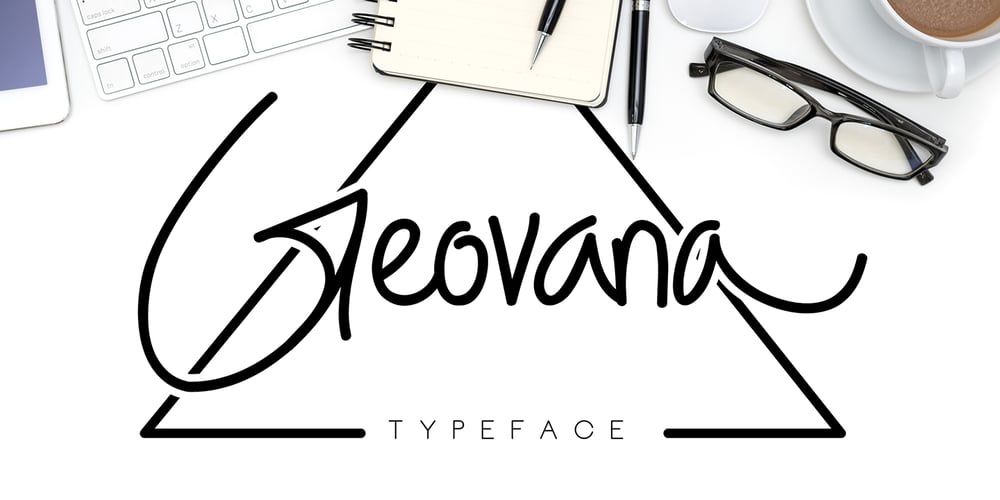
Geovana Font Family was designed by Suandana ipandemade and published by madeDeduk. Geovana contains 1 styles and family package options. Geovana is a signature typeface and is inspired from a classic handwriting style. It is suitable to create any branding, product packaging, invitation, quote, t-shirt, label, poster, and more.Feature Uppercase Lowercase Numbers & Symbols International Glyphs Alternative Uppercase Alternative Lowercase Ligatures If you need anything else just shoot me on email at: dedukvic@gmail.com